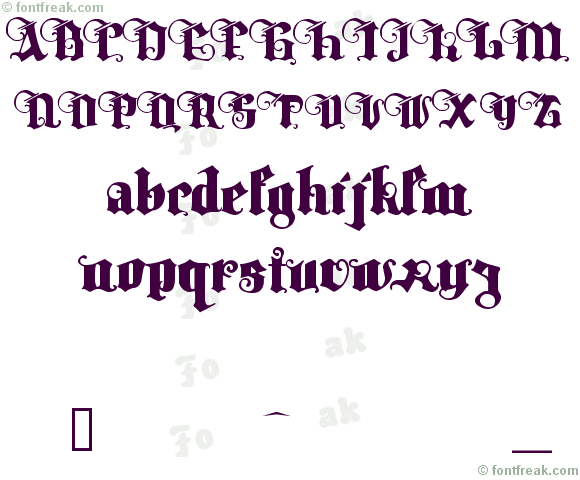
Tyrfing Demo
The Tyrfing Demo font, designed by The Scriptorium, is a striking display typeface that embodies a unique blend of medieval influence and contemporary flair. As a decorative serif font, it features bold strokes and intricate details that give it a captivating presence. The stroke weight varies, offering a sense of dynamism, while the contrast between thick and thin lines enhances its visual appeal. The spacing is thoughtfully crafted, allowing for readability while maintaining a stylish aesthetic. Decorative elements such as elegant swashes and pointed serifs contribute to its distinctive character, making it an excellent choice for projects that require a touch of sophistication.
This font is particularly suited for a variety of creative applications. It works beautifully for wedding invitations, where its romantic style can elevate the overall design. Additionally, Tyrfing Demo is perfect for movie posters, especially in genres like fantasy or adventure, where it can evoke a sense of epic storytelling. Restaurant menus benefit from its unique charm, helping to create an inviting atmosphere. Content creators looking to add flair to their branding or marketing materials will also find this font to be an ideal choice.
In conclusion, the Tyrfing Demo font stands out due to its distinctive medieval charm combined with modern usability. Its intricate design and versatility make it a valuable addition to any designer's toolkit, ensuring that your projects not only communicate effectively but also leave a lasting impression.